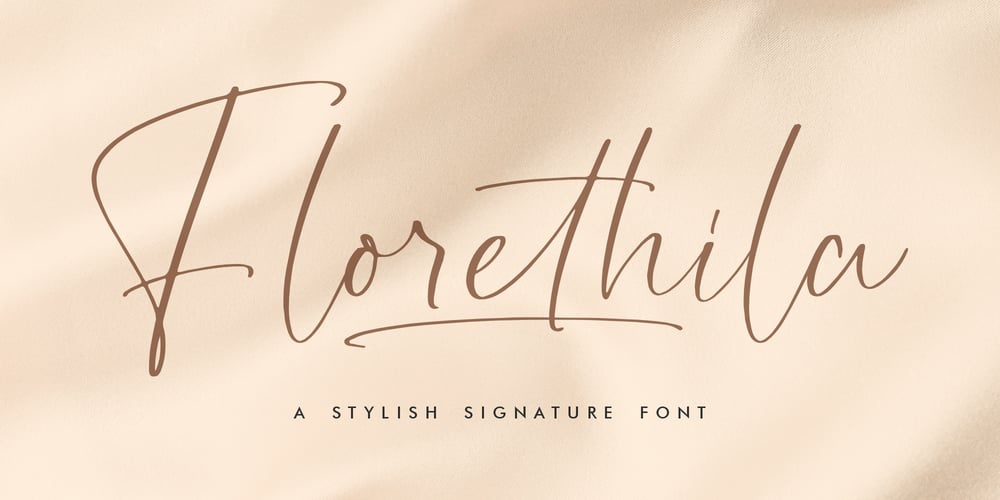
Florethila
Florethila font
Florethila Font Family was designed by Heru Utama Putra and published by Letterena Studios. Florethila contains 2 styles and family package options. Proudly present Florethila – Stylish Signature Font , created by Storytype,A luxury script that has own unique style & modern look.This typeface is perfect for an elegant & luxury logo, book or movie title design, fashion brand, magazine, clothes, lettering, quotes, and so much more.